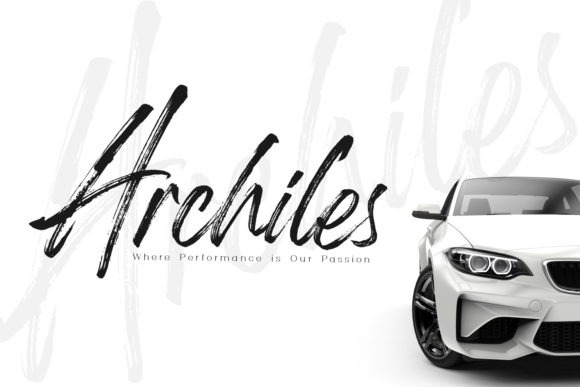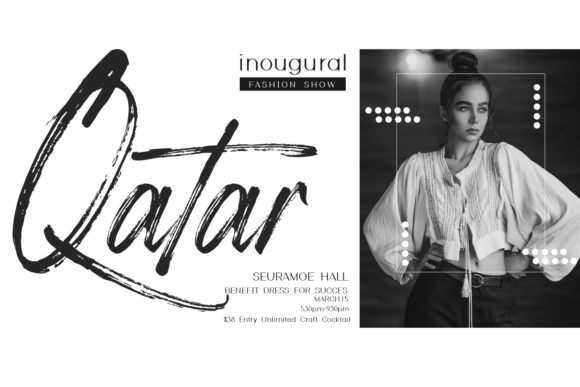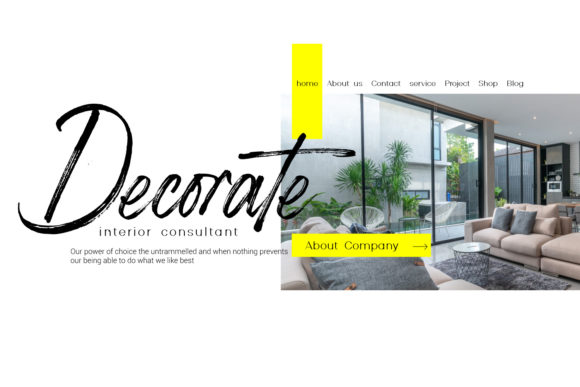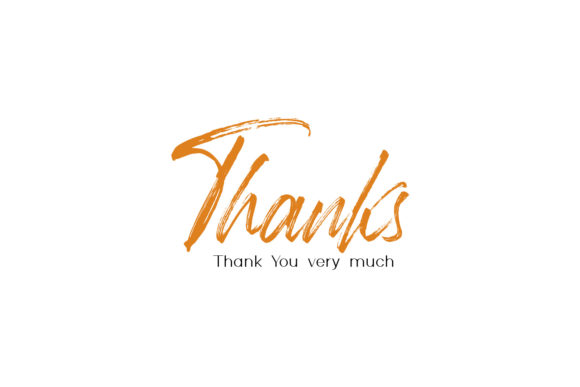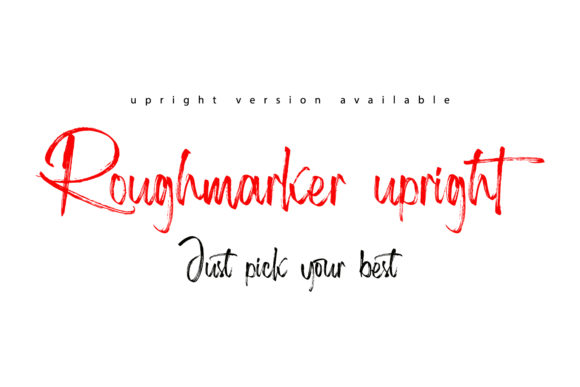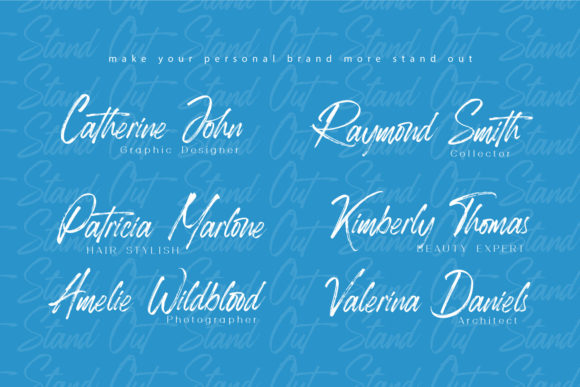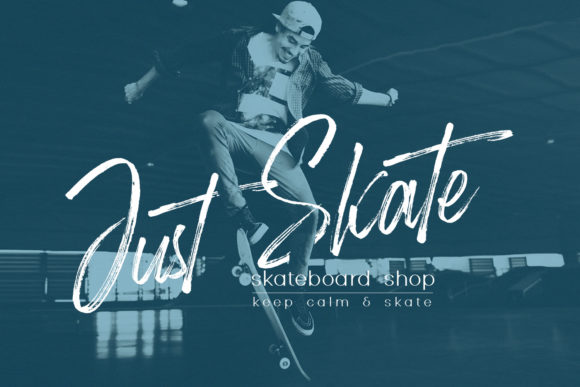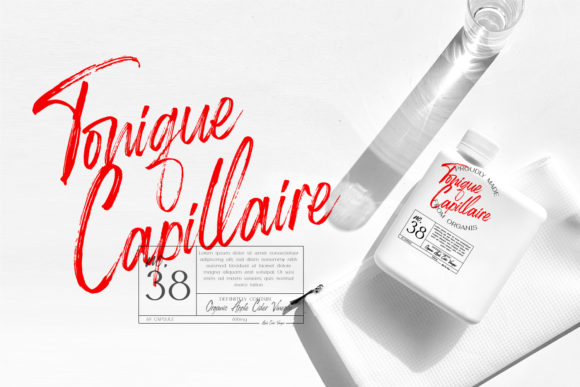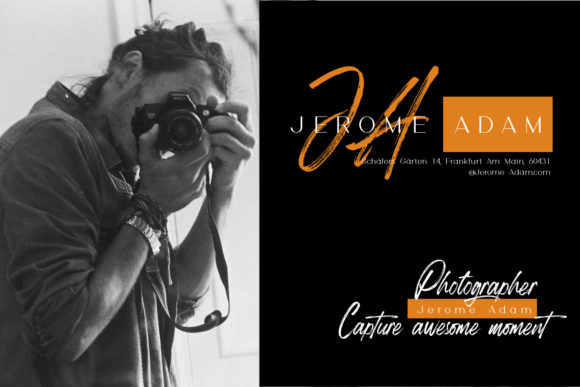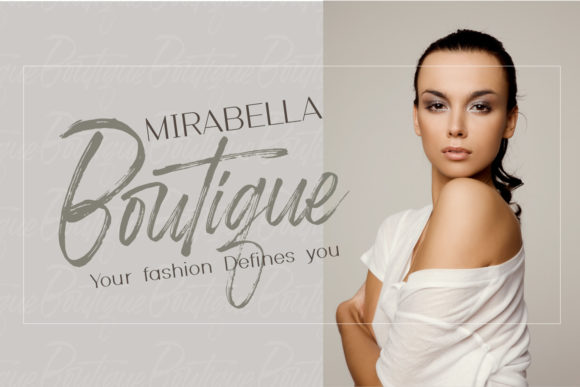
Roughmarker Font
About Roughmarker Font
Roughmarker is a modern, fun script font, created by using a brush pen. A little bit quirky, this font is the perfect fit for all of your logos, branding, social media, and crafty DIY projects.